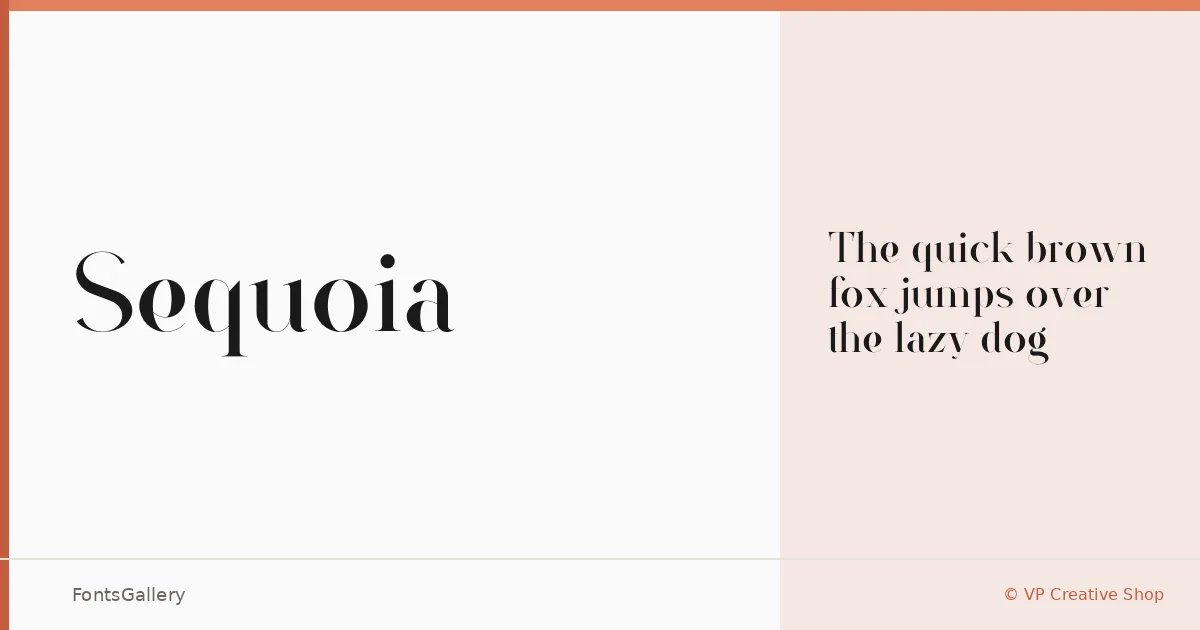
About Sequoia Font
There is a quiet confidence to this serif — the kind that comes from letterforms that know exactly how much to do and when to stop. Designed by VP Creative Shop, it arrives as a single Regular weight in OTF format, which tells you something about its intended purpose: this is a face meant to be set deliberately, not mechanically scaled across a system.
The overall mood lands somewhere between classic structure and modern restraint — elegant without being stiff, luxurious without ornament. The serif construction carries the kind of refinement that reads well large, where individual letterforms can hold attention on their own terms. With partial Latin coverage and a single Regular cut, the family suits situations where consistency of tone matters more than range of weight.
It earns its place in branding and logo work, on book covers, in magazine layouts, and as a website header where an editorial register is the goal. The contrast between its classical structure and cleaner companions works well — pairing with Helvetica or Asap gives you a grounded sans counterpoint, while Armelie, Etna, or Kactigona offer more expressive alternatives when the surrounding design calls for something with a bit more personality.